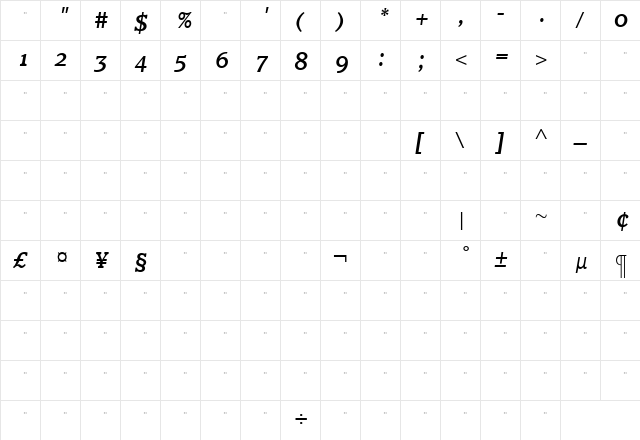
ClaremontMedItalOSTab Roman
Design Context for ClaremontMedItalOSTab Typeface
ClaremontMedItalOSTab is a composed and adaptable typeface that performs quietly and consistently across a wide range of design contexts.